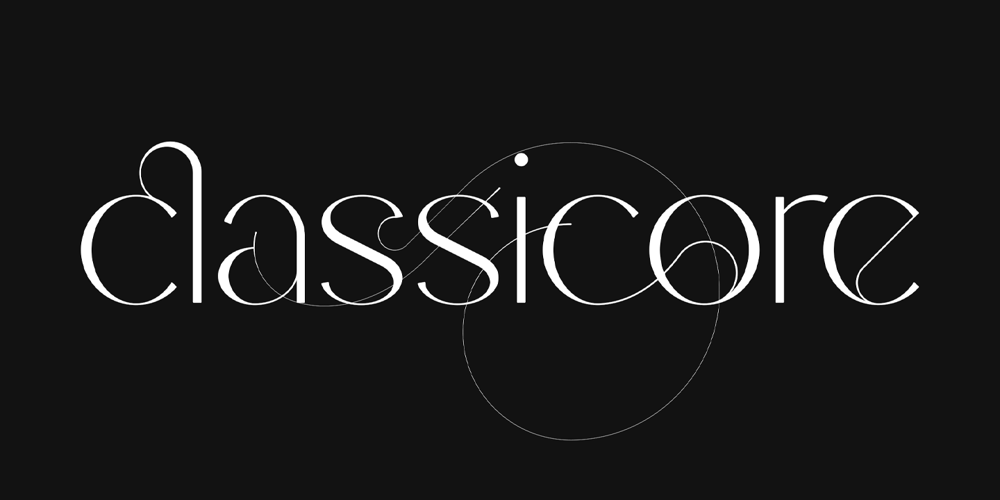
Classicore
Classicore font
Classicore Font Family was designed by Vladimir Fedotov, Plamen Petrov and published by VP Creative Shop. Classicore contains 4 styles and family package options. Introducing Stefania – font duo (latin and Cyrillic) + swashes, botanical and abstract elementsStefania is casual and creative font duo loaded with 95 languages support, alternate and ligature glyphs, natural, abstract elements, arrangements and backgrounds to make you typography truly unique!